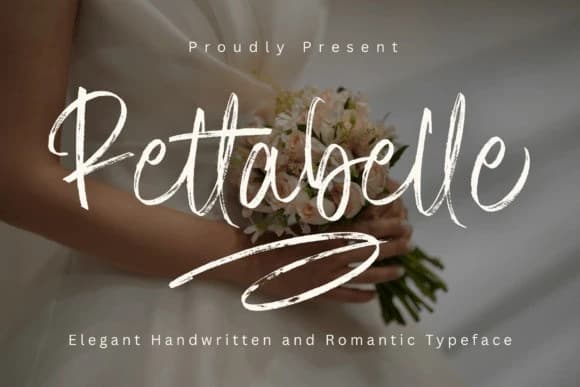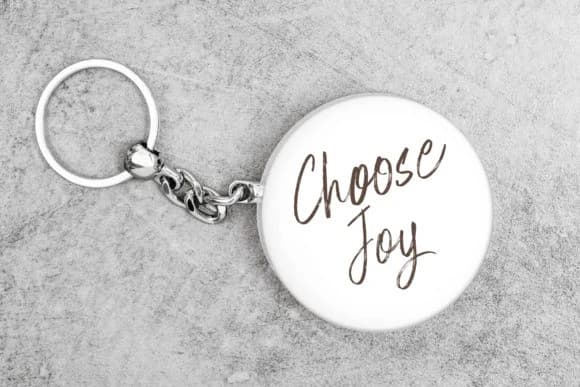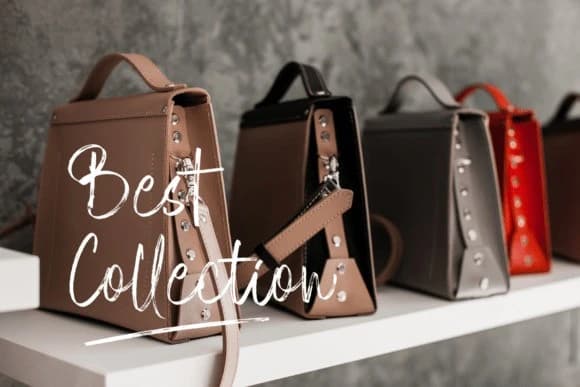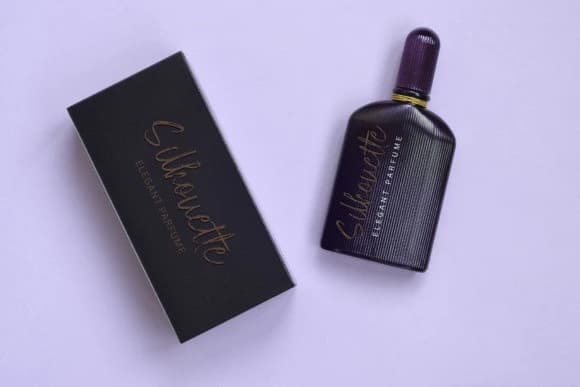
Rettabelle Brush Font
Rettabelle Font – a gracefully refined typeface, sculpted with the charm of natural brush handwriting. Its romantic aesthetics are ideal for crafting enchanting wedding invitations, distinct branding, stylish logos, engaging social media content